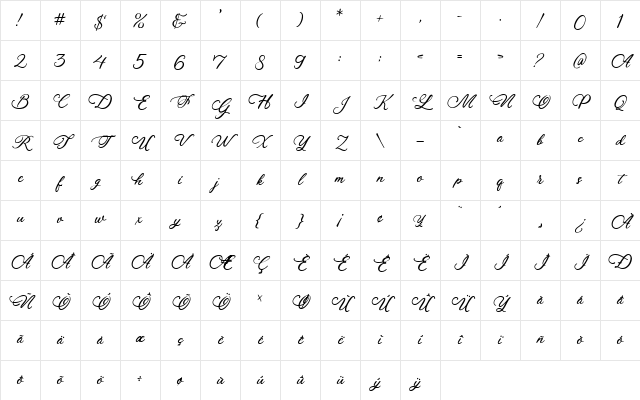
Nuptial Liberty Regular
Foundry: BlackFridayFont
Designer: BlackFridayFont
Design Context for Nuptial Liberty
Nuptial Liberty is a composed and adaptable typeface that performs quietly and consistently across a wide range of design contexts.